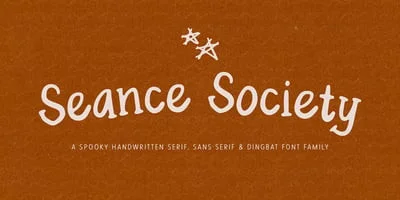
Seance Society Font
Seance Society Font is perfect for occult-themed book covers, mystical tarot card designs, supernatural movie posters, gothic band merchandise, fortune teller branding, paranormal investigation logos, witchcraft workshop materials, and mysterious escape room signage.
This font is exciting because it channels the mystical energy of Victorian-era spiritualism with haunting letterforms that evoke otherworldly connections and ancient wisdom. The Seance Society Font creates an immediate sense of mystery and intrigue, transforming ordinary text into powerful supernatural communications that captivate audiences seeking the mystical and unknown.
The Seance Society Font family includes various ethereal styles such as Regular, Bold, Light, Ornate, Shadow, Distressed, Condensed, and Ritual versions, offering designers comprehensive tools to create authentic occult and supernatural typography experiences that resonate with mystical themes.
Unlock supernatural typography with Seance Society Font that brings otherworldly charm to your creative projects. This mesmerizing typeface combines historical authenticity with contemporary design functionality, making it perfect for entertainment, publishing, and lifestyle brands that embrace the mysterious and metaphysical. The font's haunting character design creates immediate atmospheric impact while maintaining excellent readability across various applications. Whether you're designing for horror entertainment, spiritual services, or alternative lifestyle brands, Seance Society Font delivers the mystical typography that connects with audiences seeking authentic supernatural experiences. Its versatile nature works beautifully in both digital and print media while preserving the enigmatic presence that makes occult-themed designs so compelling and memorable.